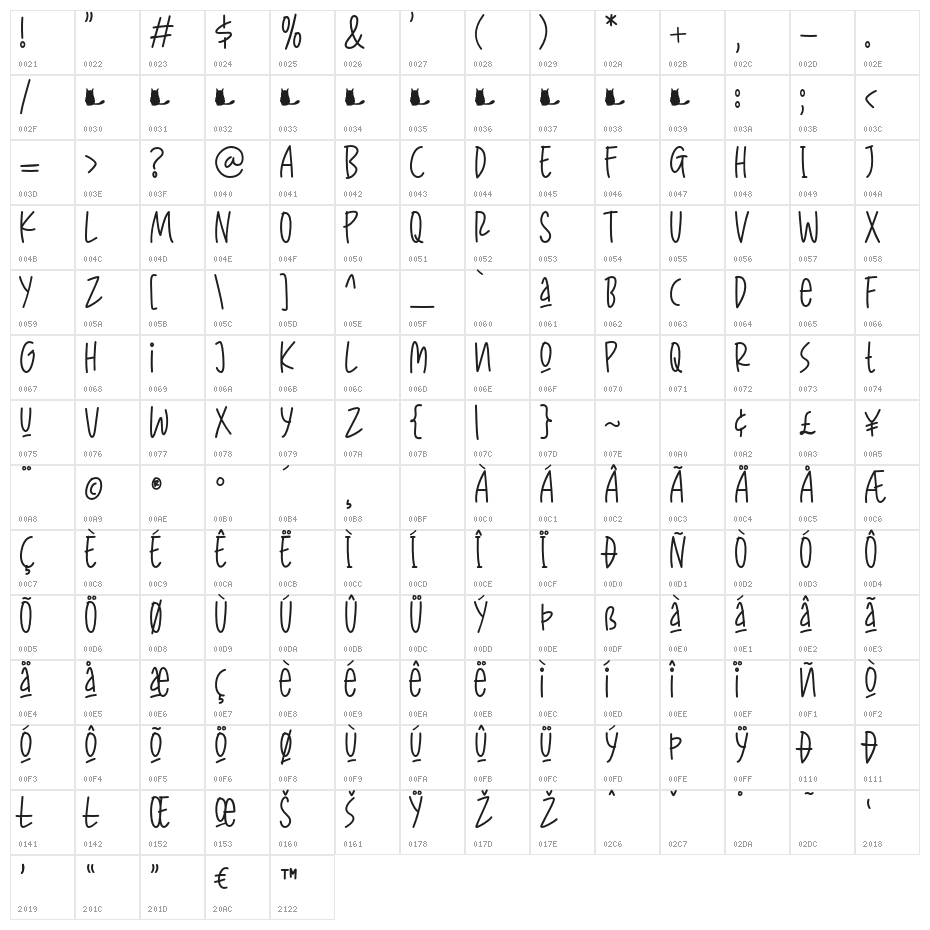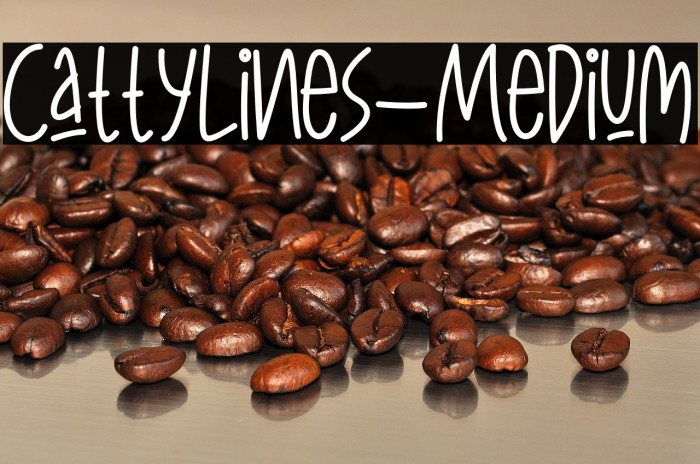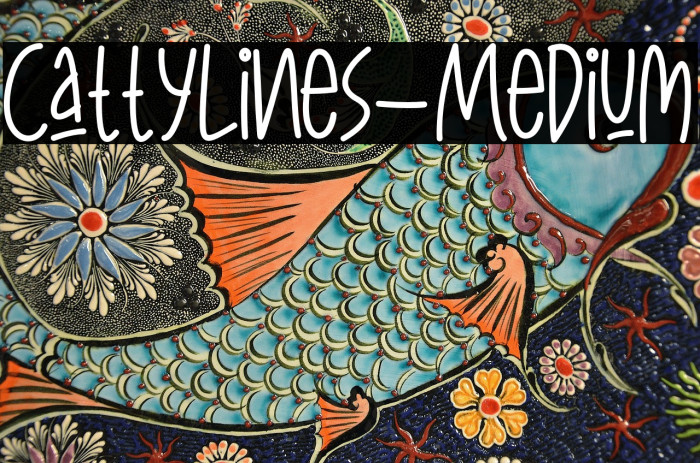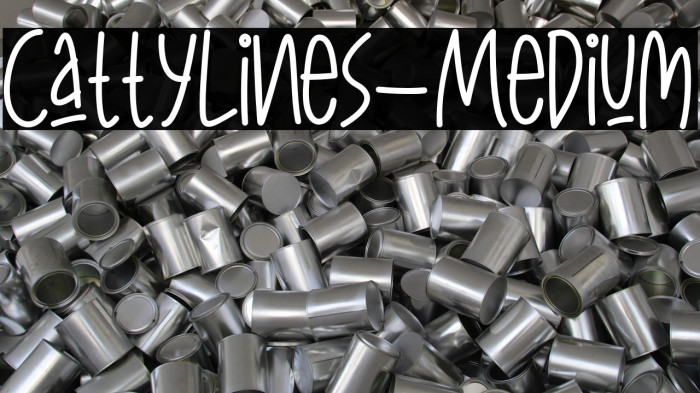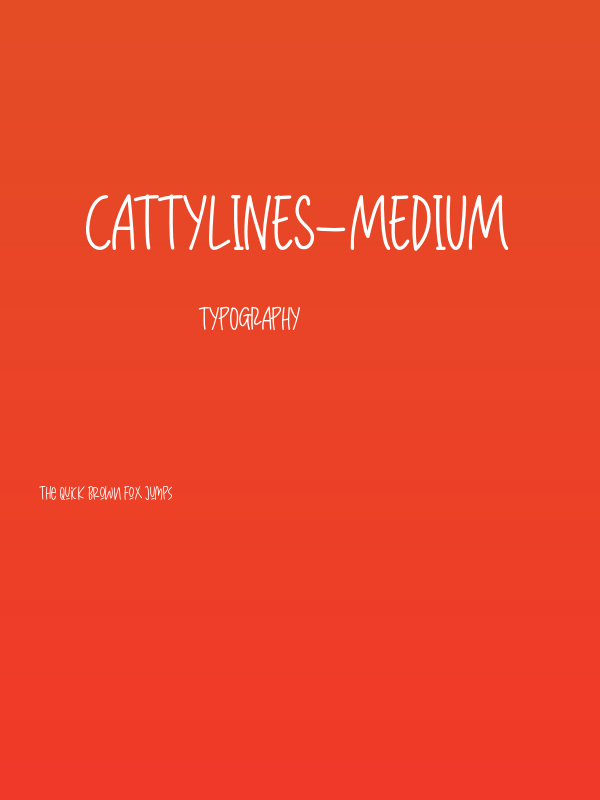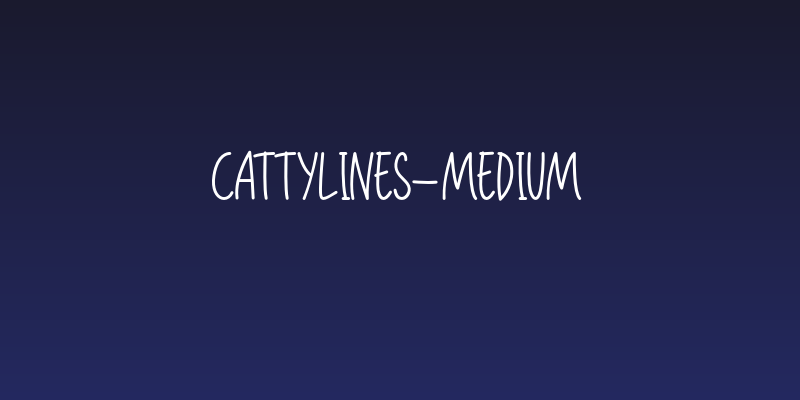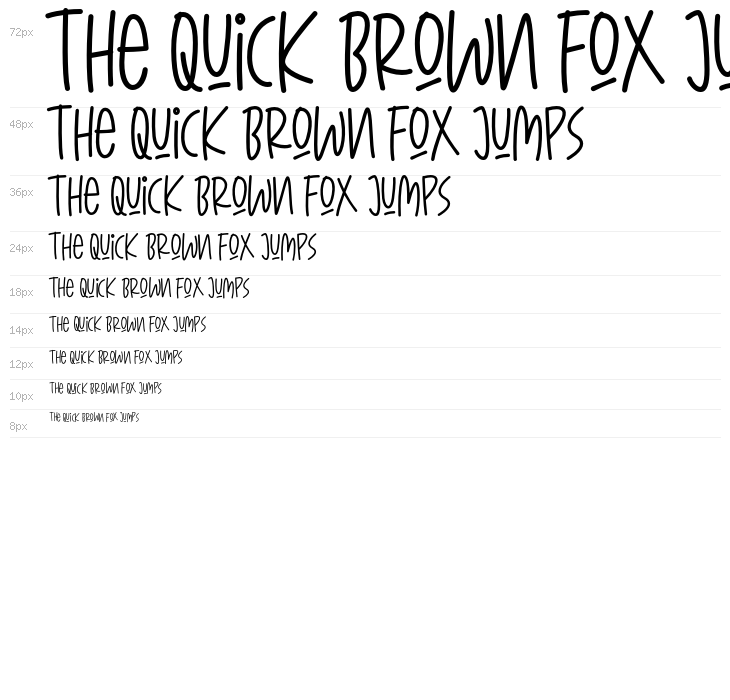
CattyLines-Medium Font
CattyLines-Medium Description
This playful and whimsical font features tall, narrow letters with a hand-drawn appearance. The strokes are smooth and consistent, giving it a casual yet artistic feel. The uppercase and lowercase letters maintain a uniform height, contributing to its cohesive look. The inclusion of cat silhouettes adds a unique decorative element, making it stand out for creative projects. The special characters are designed with the same playful style, ensuring a harmonious overall appearance.
| Proposed Projects | Ideal for children's books, playful branding, greeting cards, and creative posters. |